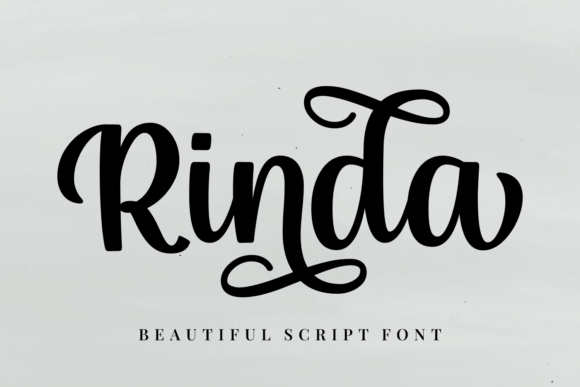
Introducing Rinda Font, an exquisite script font that's set to ignite your creative flame and transform your designs into masterpieces. This enchanting font will sweep you off your feet and leave you craving for more. Crafted by the talented team at Creative Fabrica Fonts, Rinda is more than just a font - it's an experience that will awaken your artistic senses.
Immerse yourself in the elegance and distinction that Rinda exudes. Its meticulously crafted characters dance across your screen, beckoning you to unleash your creativity. From flowing wedding invitations that whisper sweet nothings to heartfelt thank-you cards that convey gratitude with a touch of grace, Rinda is your perfect companion.
Unleash the artist within and let your imagination soar as you create captivating quotes that resonate with your audience. Greeting cards adorned with Rinda's charm will leave a lasting impression, while logos and business cards will exude a touch of sophistication that sets you apart from the crowd.
Whether you're a seasoned designer or just starting out, Rinda is your guiding light. Its versatility knows no bounds, making it the perfect choice for any project that demands a customized touch. Embrace the endless possibilities and elevate your designs to new heights.
Adding Rinda to your creative arsenal is like granting yourself a magic wand that transforms ordinary designs into extraordinary masterpieces. Say goodbye to mundane fonts and embrace a world of beauty and inspiration. With Rinda by your side, you'll discover a newfound passion for design that will ignite your soul and leave you exhilarated.
As an added bonus, Rinda is PUA encoded, making it incredibly user-friendly. Easily access all the glyphs and swashes you desire, adding an extra layer of magic to your designs. Don't let this opportunity pass you by. Embrace Rinda Font today and embark on a creative journey that will leave you breathless. Elevate your designs. Inspire your audience. Unleash your artistic genius. Rinda Font awaits your command.